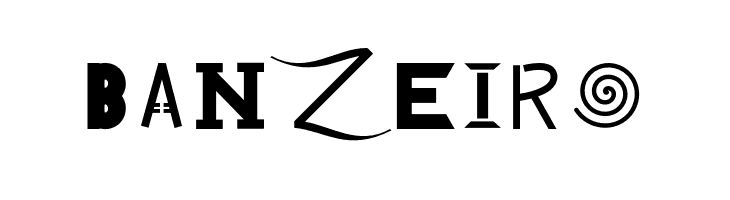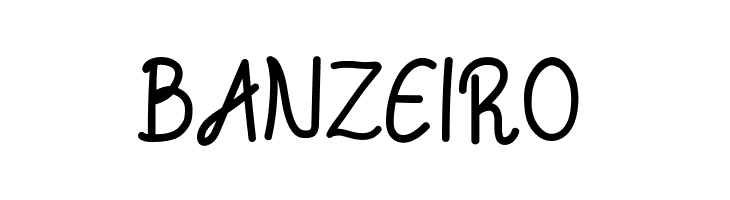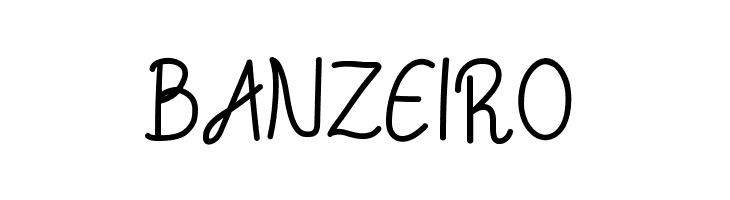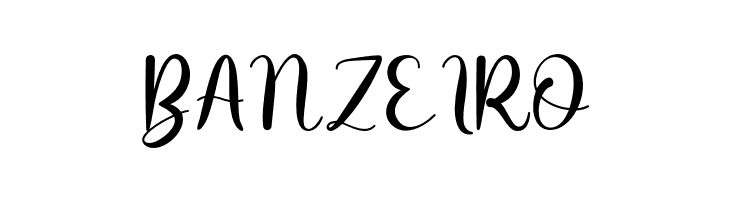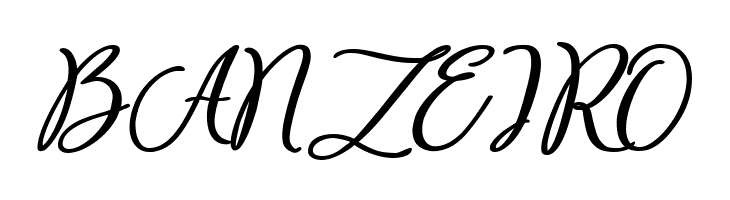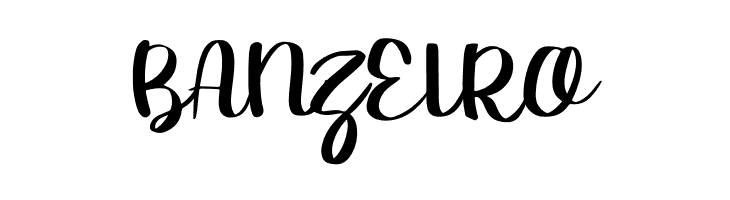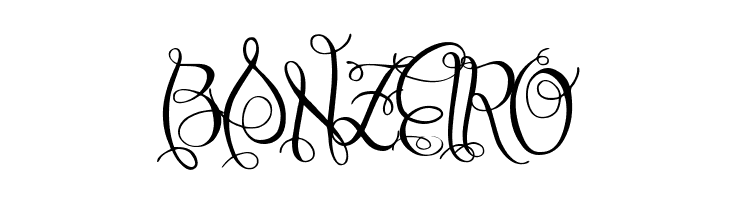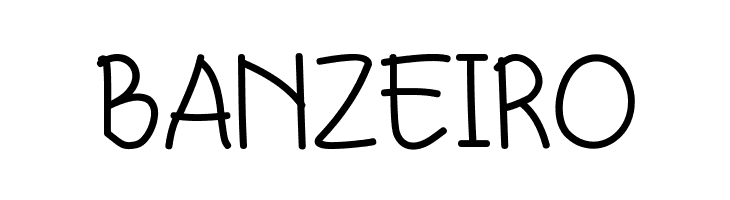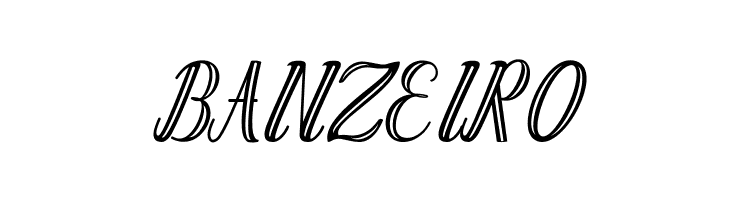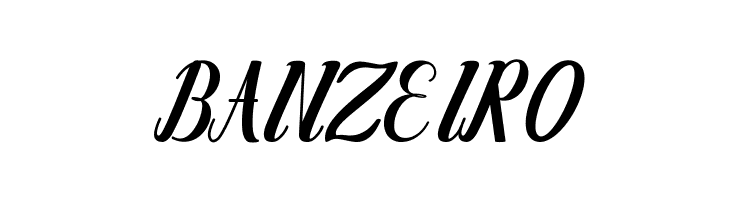
A playful handwritten font with heart accents and a casual, friendly style.
A playful handwritten font with heart accents, perfect for romantic and casual designs.
A playful, hand-drawn font with whimsical characters and decorative doodles.
A playful and elegant script font with bold, flowing letterforms.
An elegant script font with flowing, interconnected characters and high contrast strokes.
A dynamic, cursive script font with an expressive, italic style.
A bold, expressive handwritten font with fluid, dynamic strokes and a brush-like texture.
A bold, flowing script font with interconnected letters and expressive strokes.
A playful, handwritten font with a casual and friendly vibe.
A modern, high-contrast font with sleek, elongated characters.
A bold, slab serif font with a vintage yet modern appeal.
A graceful and elegant script font with flowing, connected strokes.
A dynamic and elegant script font with fluid, connected letterforms.
A dynamic and elegant script font with flowing, slightly slanted letterforms.
An elegant script font with decorative swirls and a handwritten aesthetic.
An elegant and decorative script font with flowing, interconnected letterforms and intricate flourishes.
A flowing, cursive script font with elegant, connected strokes.
An elegant, flowing script font with classic calligraphic elements.
A graceful, cursive script font with fluid, continuous strokes.
A playful, hand-drawn font with rounded, informal characters.
A playful, handwritten font with smooth curves and a casual, dynamic style.
A playful, handwritten font with fluid, connected strokes and a casual style.
A bold, handwritten font with fluid, connected strokes and a playful style.
A bold, handwritten font with a playful and casual style.
An ornate and decorative font with intricate swirls and flourishes.
A decorative and eclectic font with unique, artistic characters.
An elegant script font with ornate swashes and flowing cursive style.
A whimsical script font with elegant, flowing letters and delicate strokes.
A bold serif font with a modern twist, featuring strong, commanding characters.